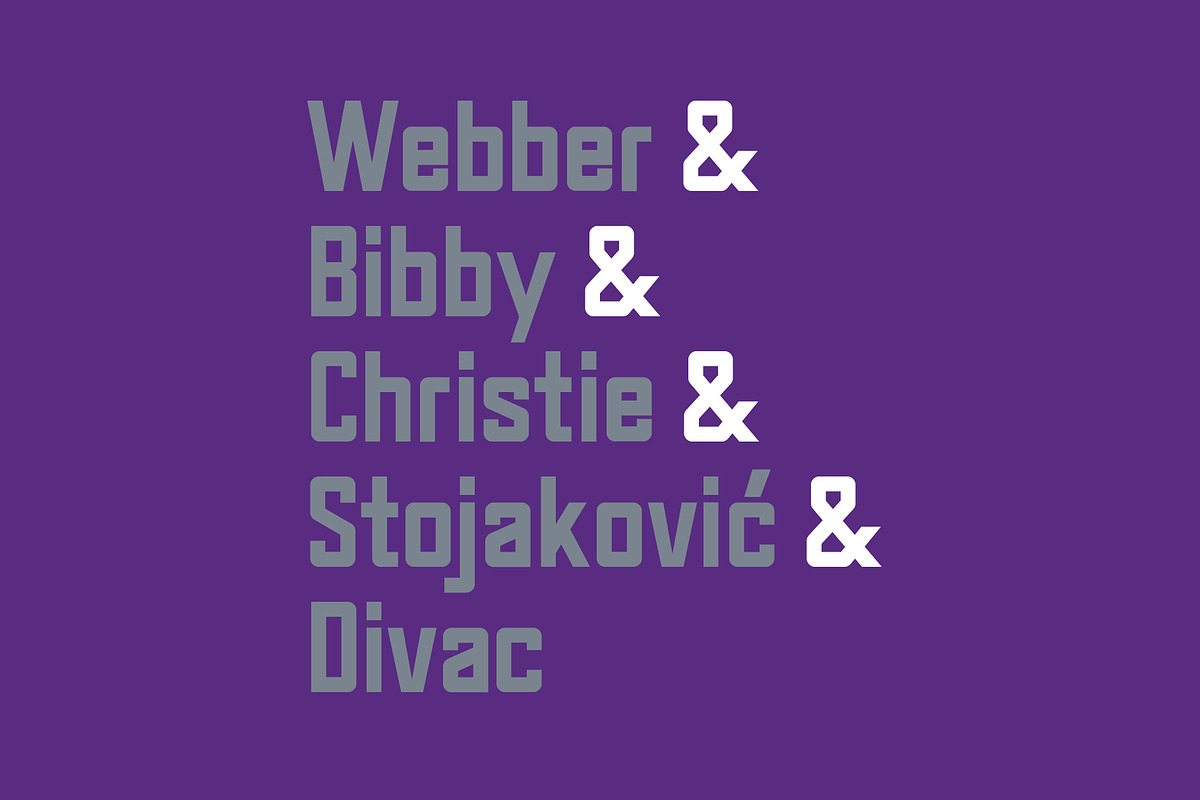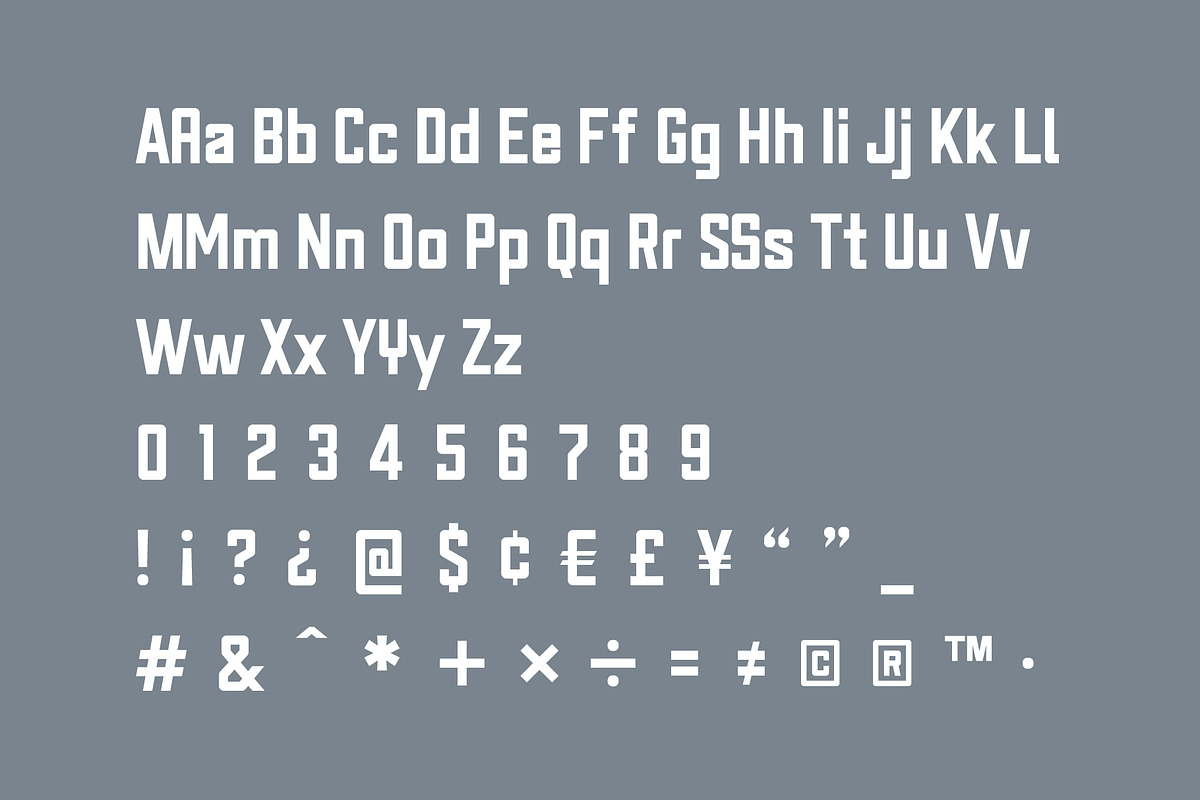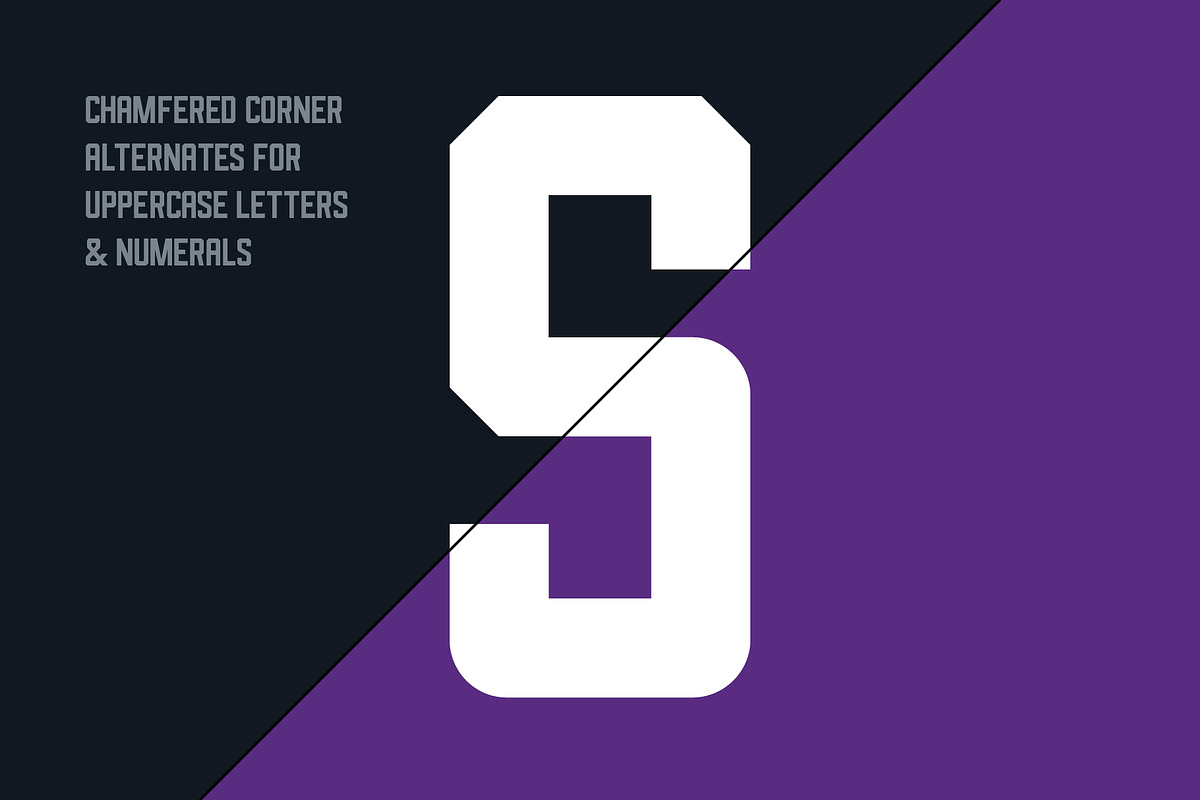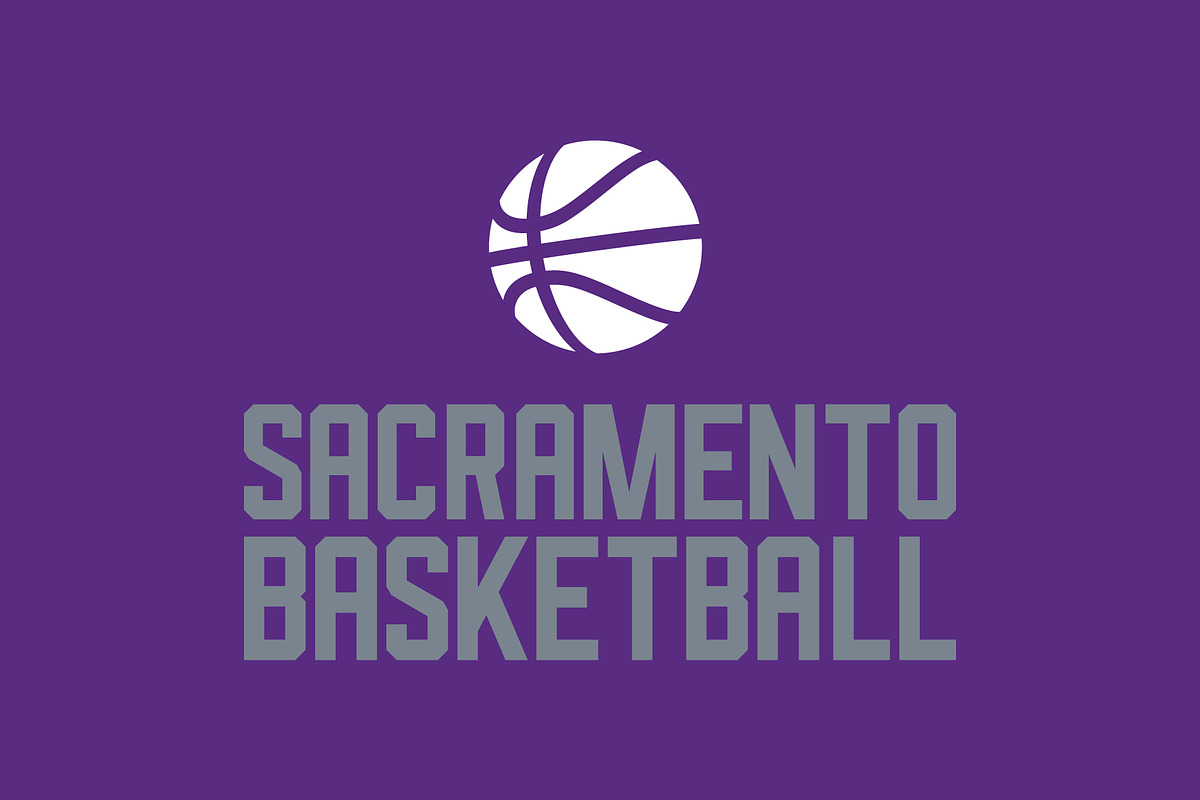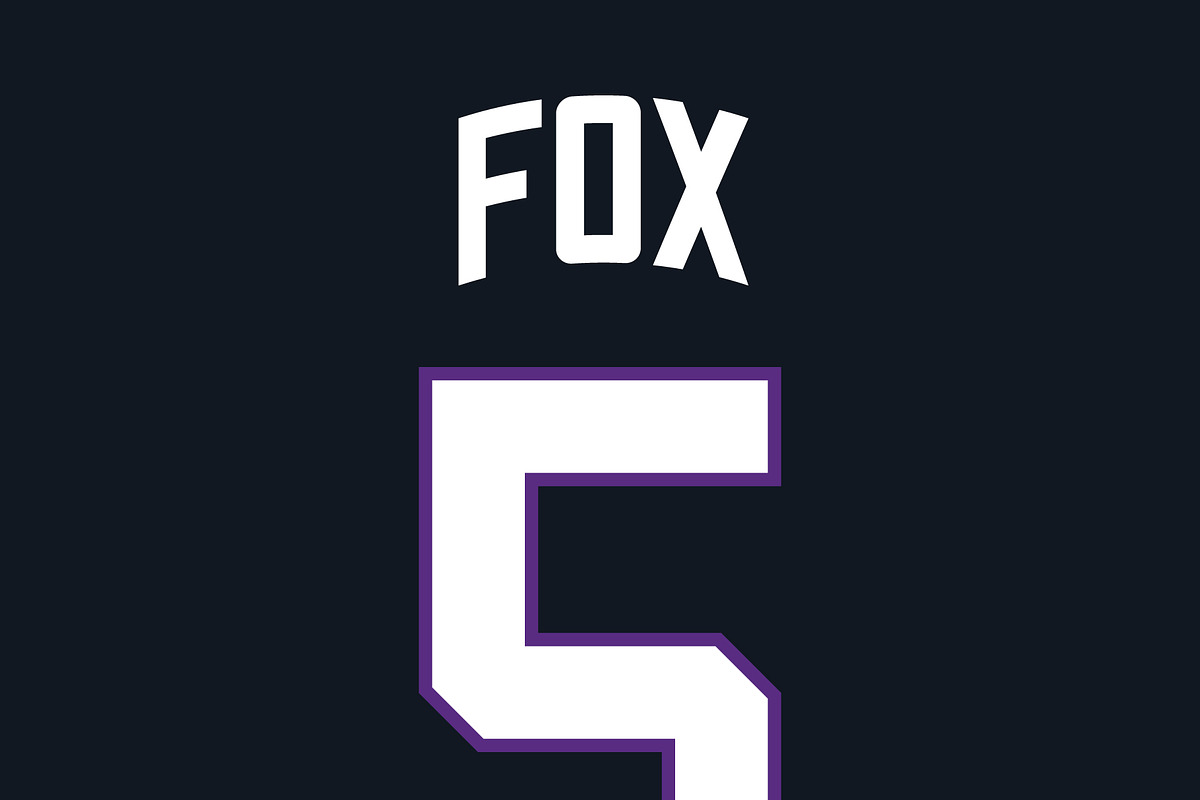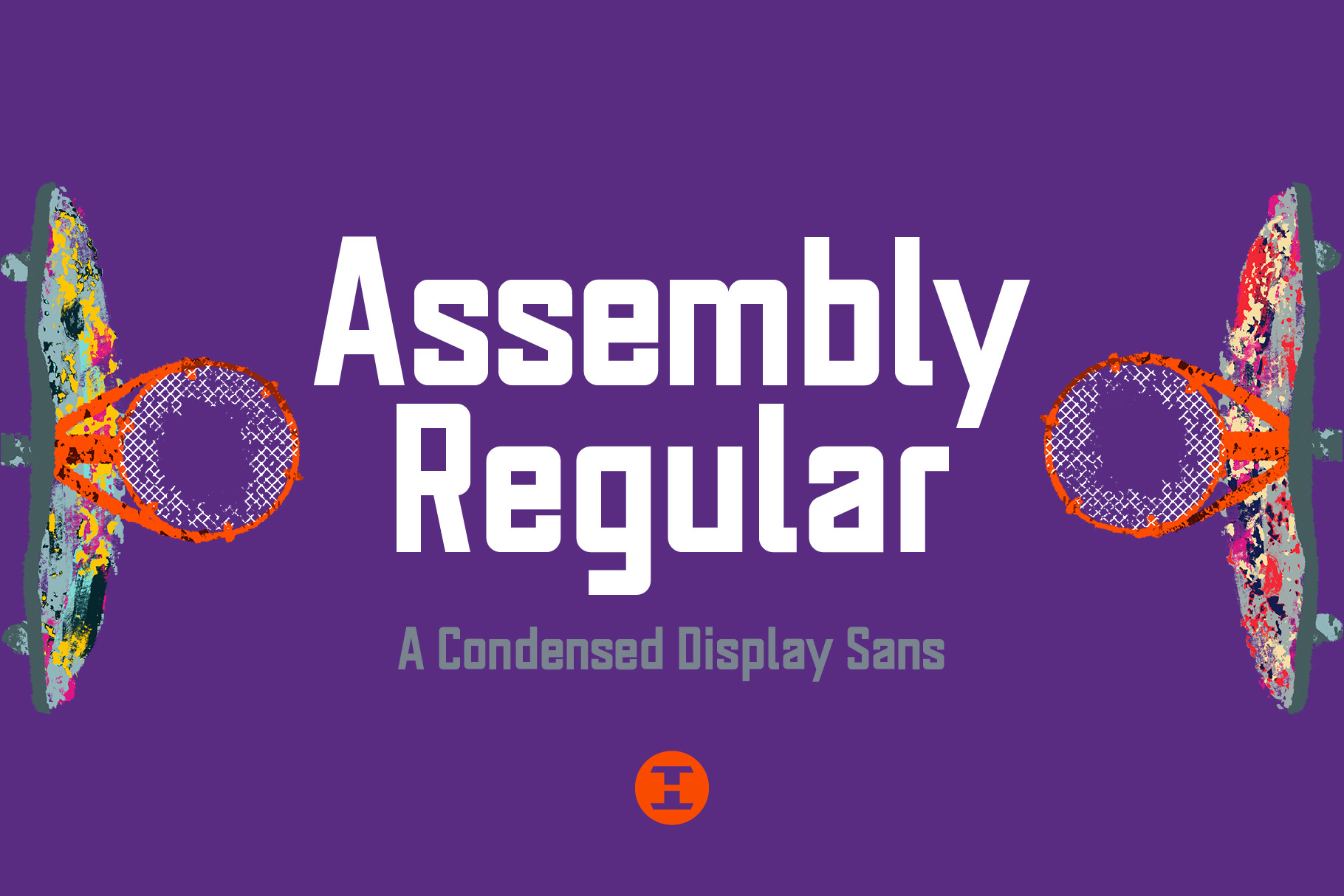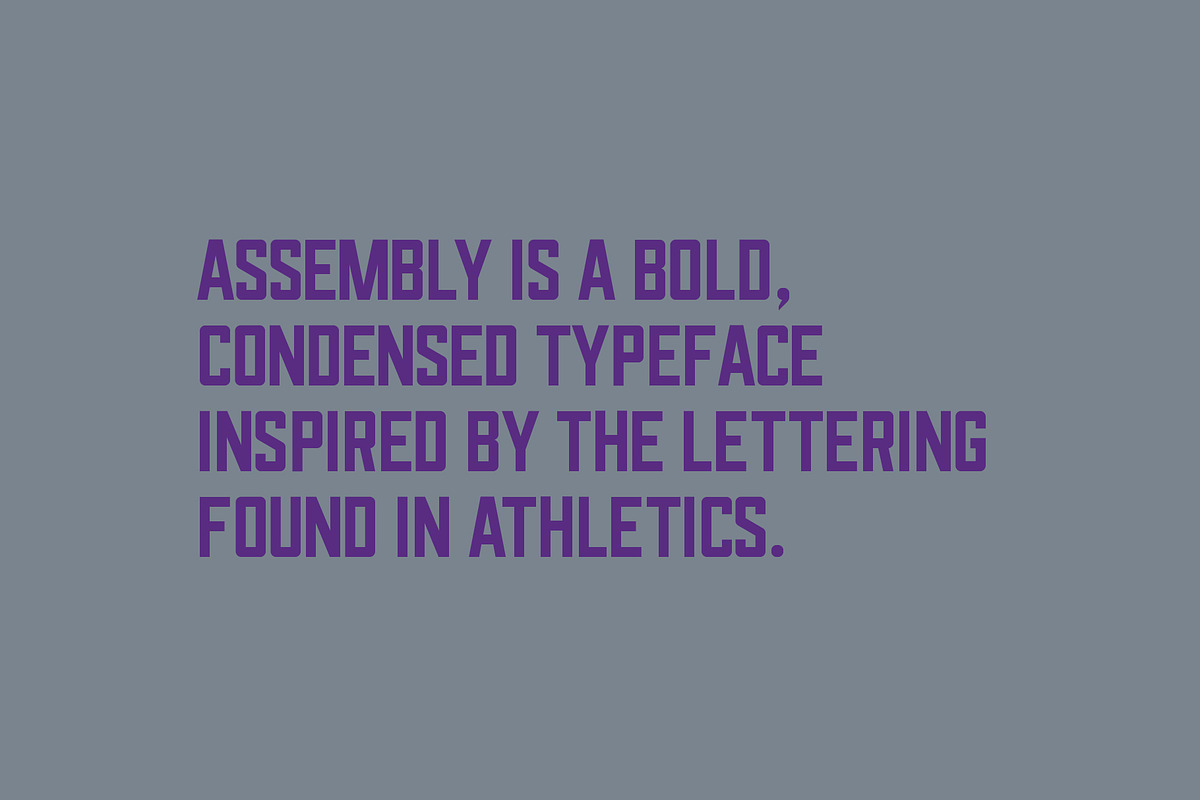
Assembly Regular - Display Font
Assembly Regular and Assembly Low have been combined to form the ALL-NEW Assembly Version 2! Assembly Version 2 contains everything found in both fonts–along with some new extras, alternates and brand-new diacritics–all in the convenience of one file.
Assembly Regular is a condensed typeface inspired by vintage lettering found in athletics.. While it may have its origins in sports, it adapts extremely well to other applications, whether it’s an album cover, email header or apparel. The Assembly Regular font also includes a few alternate glyphs to add some variations in your applications.
- 2 Styles - Regular and Italic
- Standard English Alphabet - Uppercase, Lowercase
- Numerals, Currency Symbols, Standard Punctuation, Diacritics